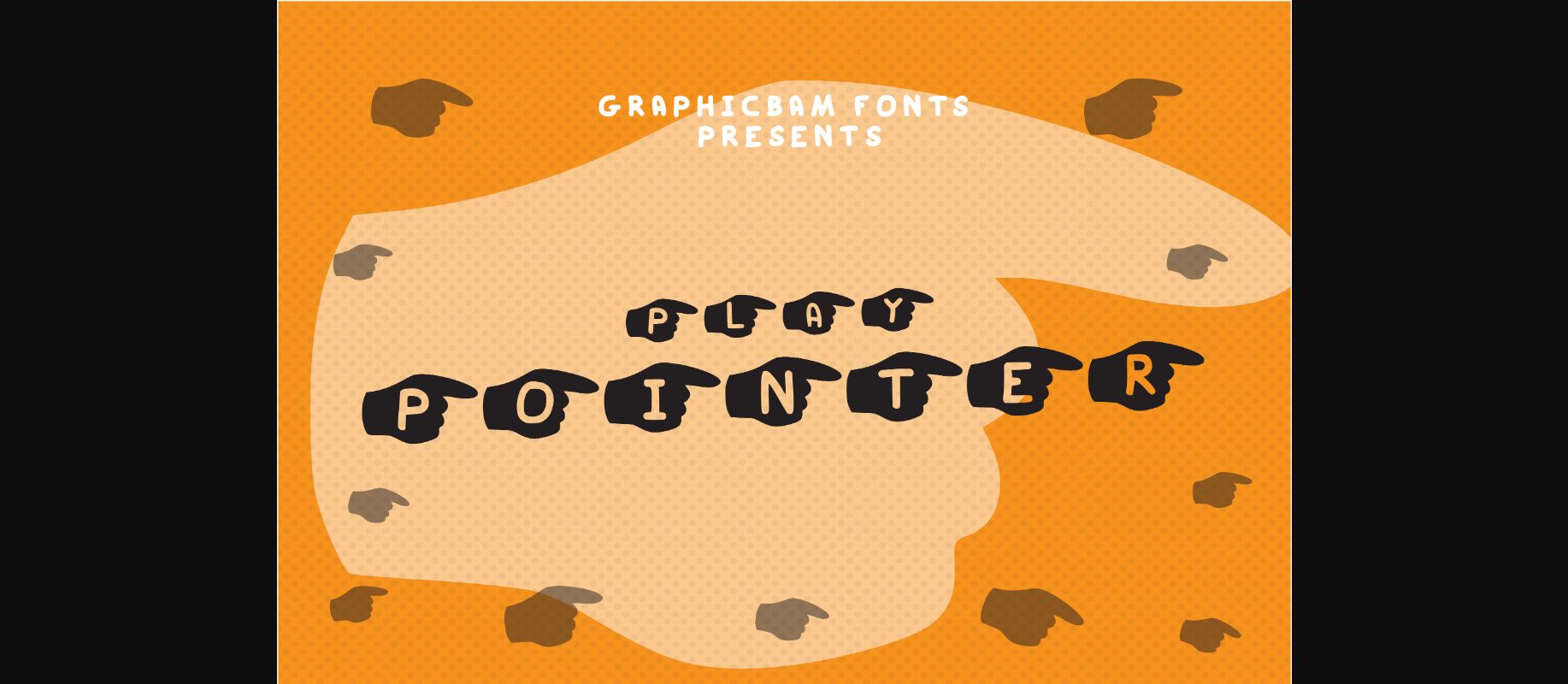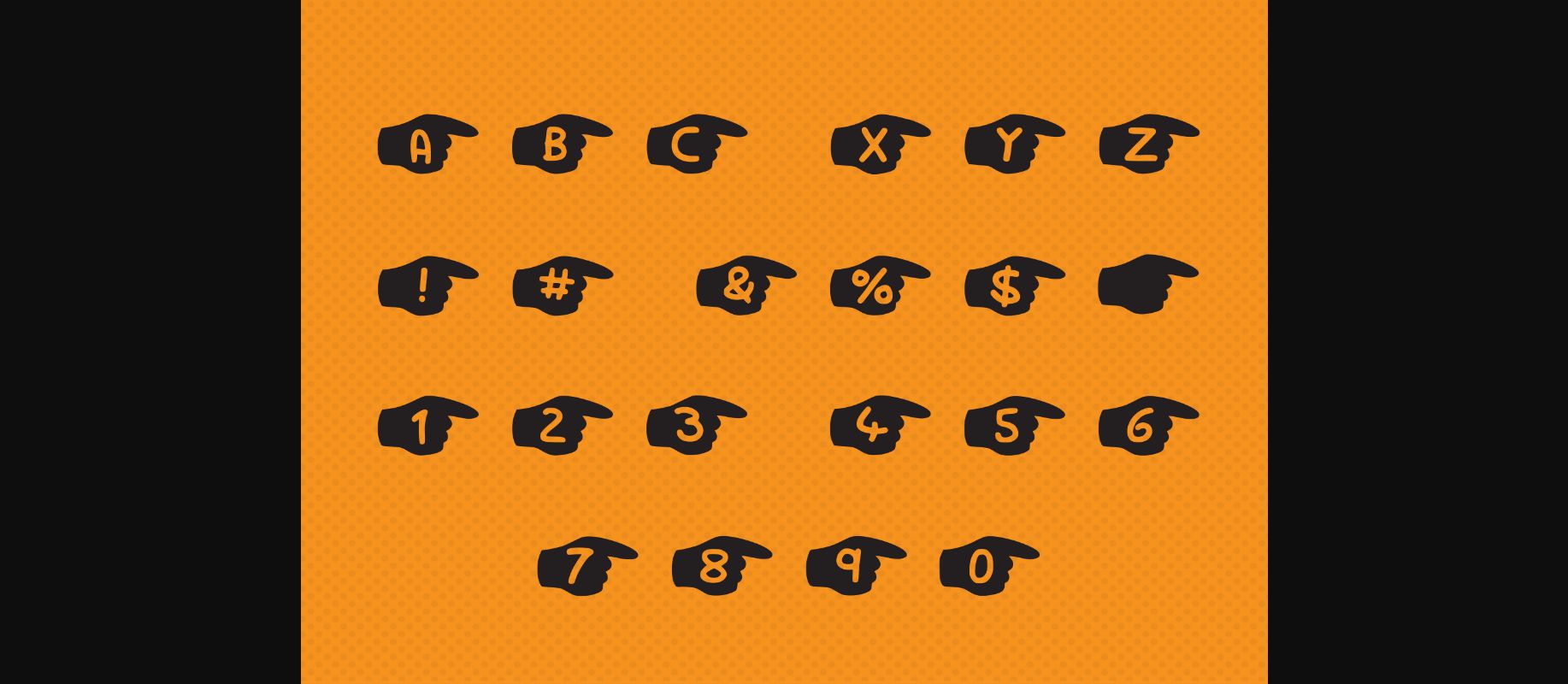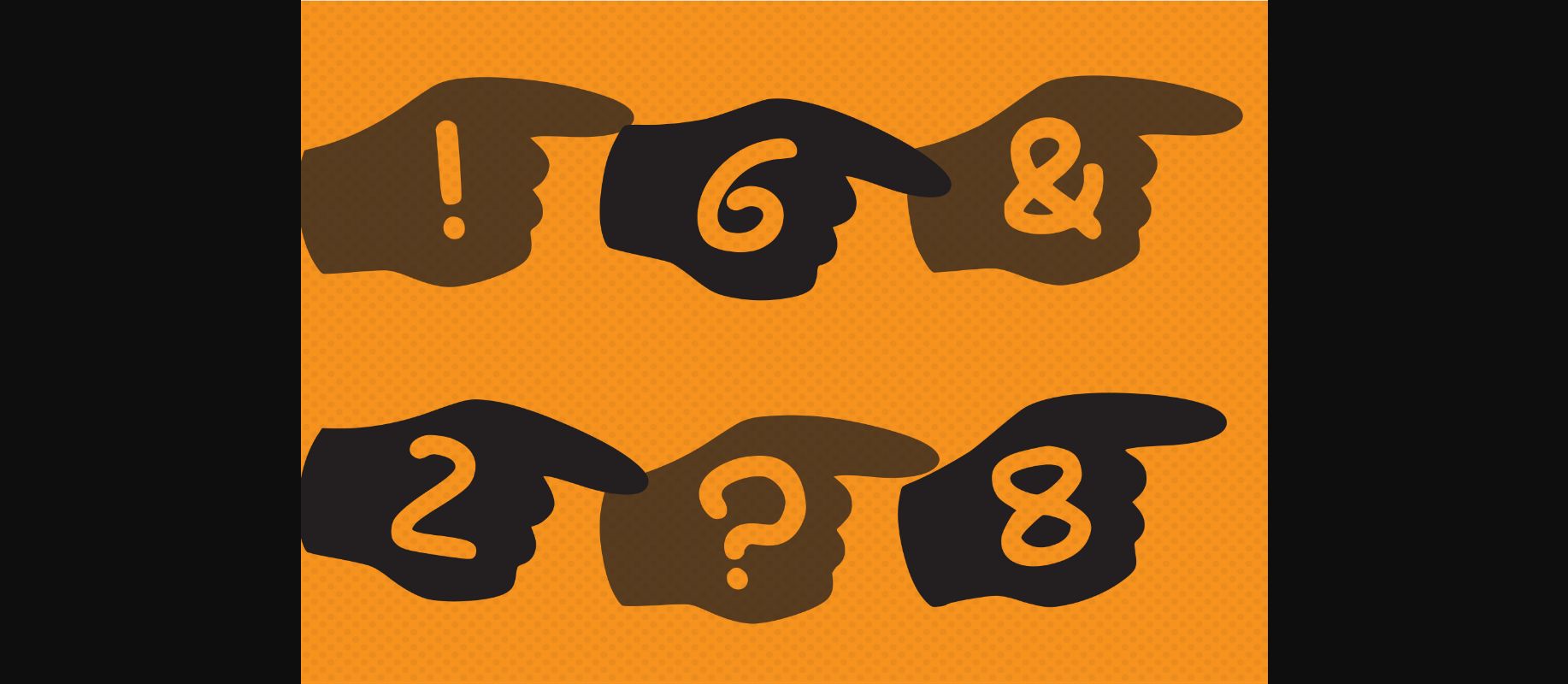
About Play Pointer Font
Play pointer – the only decorative font that’s pointing directly at you to use in your projects! Let this entertaining typeface add life to your branding materials, banners, invitations, or other creative designs.